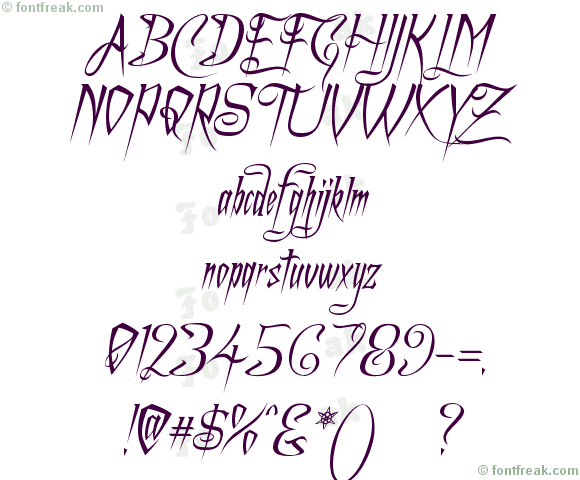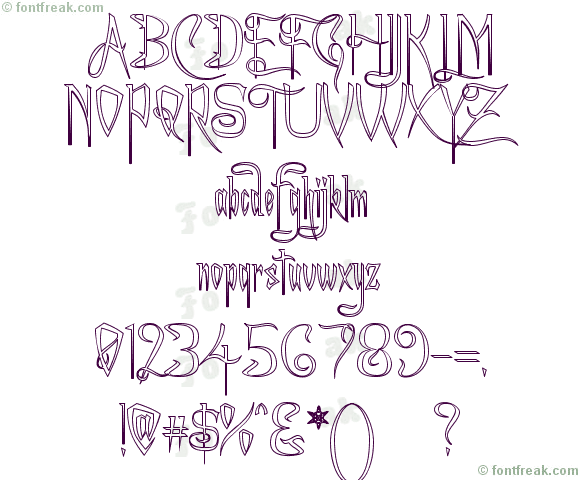
A Charming Font Superexpanded
A Charming Font
A Charming Font Expanded
A Charming Font Leftleaning
A Charming Font Outline
A Charming Font Italic
About A Charming Font
A Charming Font by Gemfonts is a captivating display typeface that exudes whimsy and elegance. This font falls into the decorative category, characterized by its unique left-leaning outline style and italic design, making it an eye-catching choice for various creative projects. The stroke weight is moderate, offering a delightful contrast that enhances its charming appeal. The expanded letterforms feature a generous amount of spacing, ensuring legibility while maintaining a playful aesthetic. The decorative elements, such as the elegantly curled ascenders and distinctive descenders, add a touch of sophistication, perfect for capturing attention.
This font is ideal for a variety of applications. It shines in wedding invitations, where its romantic flair can help set the tone for a special day. Additionally, it works wonderfully for movie posters, lending a sense of drama and intrigue. Restaurant menus can also benefit from A Charming Font, as its unique style can elevate the dining experience and create a memorable impression on patrons. Moreover, small business branding, particularly for boutiques or cafés, can leverage this font to convey personality and charm.
A Charming Font stands out not only for its aesthetic qualities but also for its versatility. Its enchanting design can transform ordinary text into captivating visuals, making it a valuable asset for anyone looking to leave a lasting impression. Don't miss out on this opportunity—A Charming Font font free download is available for those eager to infuse their projects with unique character and charm.